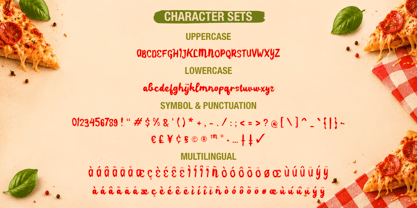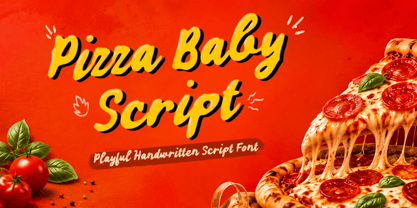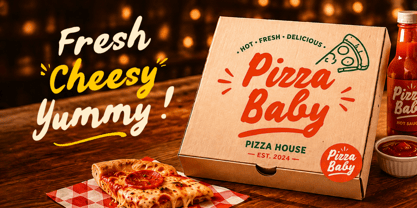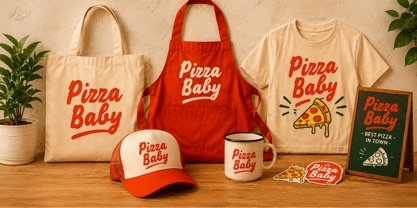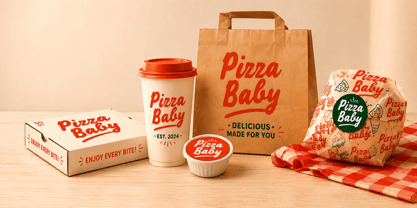
Pizza Baby Script
by Letterytz CalliType
The Pizza Baby Script Font Family was designed by Wahyu Eka Prasetya, Dian Angga Marytama and published by Letterytz CalliType. Pizza Baby Script contains 2 styles and family package options. More about this family
Designers: Wahyu Eka Prasetya, Dian Angga Marytama
Foundry: Letterytz CalliType